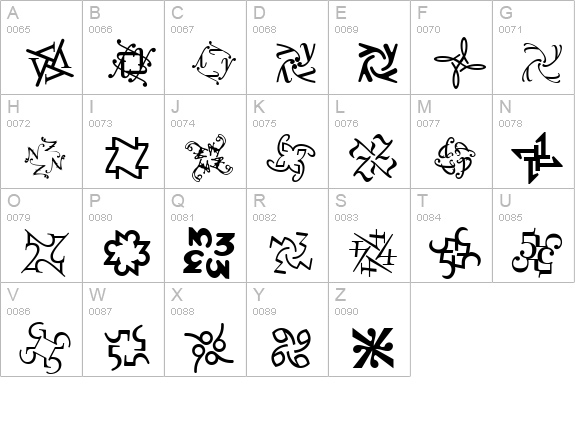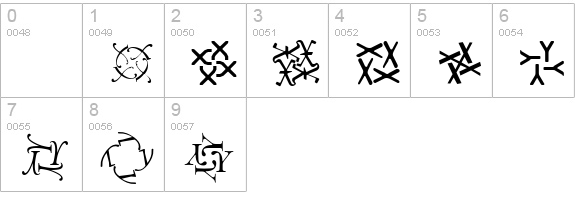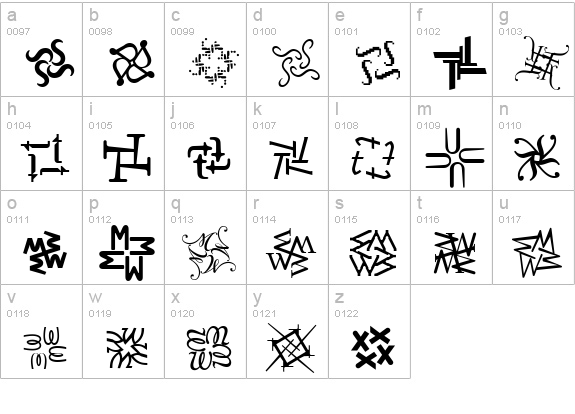
HypnopaediaTwo Regular Font Details
HypnopaediaTwo Regular is the standard, neutral variant in the HypnopaediaTwo typeface family \xE2\x80\x94 well suited to general body text, paragraphs, and standard typographic work.
HypnopaediaTwo Regular font is a beautifully designed typeface that exudes elegance and sophistication. With its sleek lines and modern aesthetic, this font is perfect for a wide range of design projects, from branding to editorial design. The clarity and readability of HypnopaediaTwo Regular make it a versatile choice for both print and digital applications. And the best part? HypnopaediaTwo Regular is available for free download at FontsMarket.com. Simply visit the website to get your hands on this stunning font and elevate your designs to the next level. Don't miss out on the opportunity to add HypnopaediaTwo Regular to your font collection today!